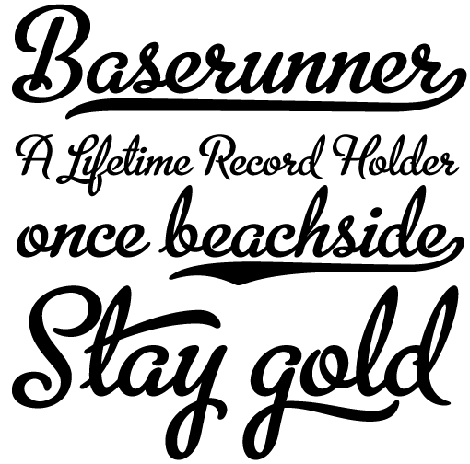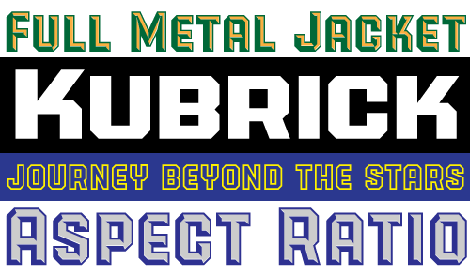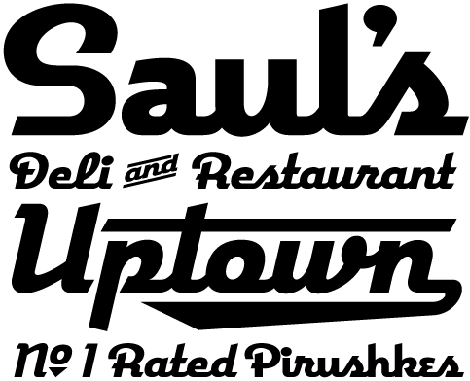
Alphabet Soup: A Tasty Font Foundry
FontShop has added some delicious typefaces from Michael Doret's font foundry, Alphabet Soup.
You're probably familiar with Michael Doret's work without even knowing it. If you have seen his logo for the New York Knicks, or one of his many covers for Time Magazine, then you've witnessed the power and dynamism he brings to the art of hand-drawn letterforms. Doret's font foundry Alphabet Soup shows that his background in lettering brings a unique perspective to type design. We're proud to offer the collection at FontShop.
Metroscript
Virtually years in the making, Metroscript is an outgrowth of a lettering style that Doret has used in his design work dozens of times, usually for connecting words such as "and the", "from", etc. This style has been described as a "baseball" or "sports" script -- which is true -- but its applicability is really much wider than that.
Created in OpenType, Metroscript is chock full of features that will expand its usability, such as six tail styles with variable lengths; letters that know when they're at the beginning or at the end of a word or following a certain other letter -- and change accordingly; dozens of special characters, swashes, ligatures, accents, plus literally dozens of stylistic alternates, swashes, and ligatures, all fitting together in a way that makes each word seem as if it was lettered by hand. These extras are all built into the full-featured Metroscript OT font, and also as separate fonts for applications that are not OpenType-aware.
PowerStation
A few years ago Doret needed to devise some letterforms for Hershey's Chocolate. The design of Powerstation Block was the direct outgrowth of this project. When he initially decided to flesh out this "chocolate chunk" of a typeface into a family of usable fonts, he felt that the next in the family should be one in which the illuminated facets became more dominant -- giving it a lighter feel -- and so PowerStation Wedge was born. Doing a straight, solid version and then a thick, outlined version followed by wide versions of all of the above seemed only natural.
But why stop there? Doret wanted to give this extremely graphic display font even more flexibility and usefulness by adding a two color capability. This was achieved by creating "layerable" versions of the four faceted designs -- i.e., PowerStation Block Low, which is the base solid font, and PowerStation Block High, which contains the highlighted facets. By pasting the High over the Low and colorizing them differently, one can easily achieve virtually limitless color effects.
Deliscript
Although the initial idea for Deliscript Upright and Deliscript Slant was inpired by the neon sign in front of Canter's Delicatessen in Los Angeles, the design soon took on a life of its own -- and its own distinctive look. Unlike most "retro" fonts, Deliscript is not a retread of an older design that had been lost or forgotten, found, and then recreated. Like its sibling Metroscript, it is a completely new and unique design created from the ground up. It may have historical antecedents, but despite the "déjà vu" feeling it may provoke, it's as new and fresh as anything else out there.
Alternates, ligatures, and variable-length tails are all built into the full-featured Deliscript Regular and Italic OT fonts. Separate fonts are included for applications that are not OpenType-aware.